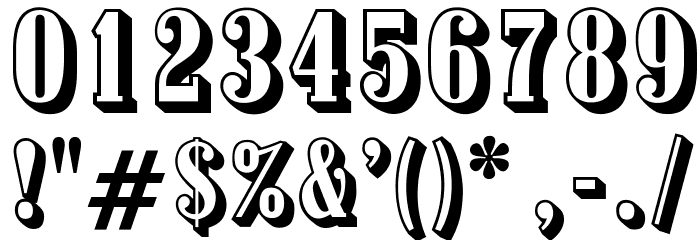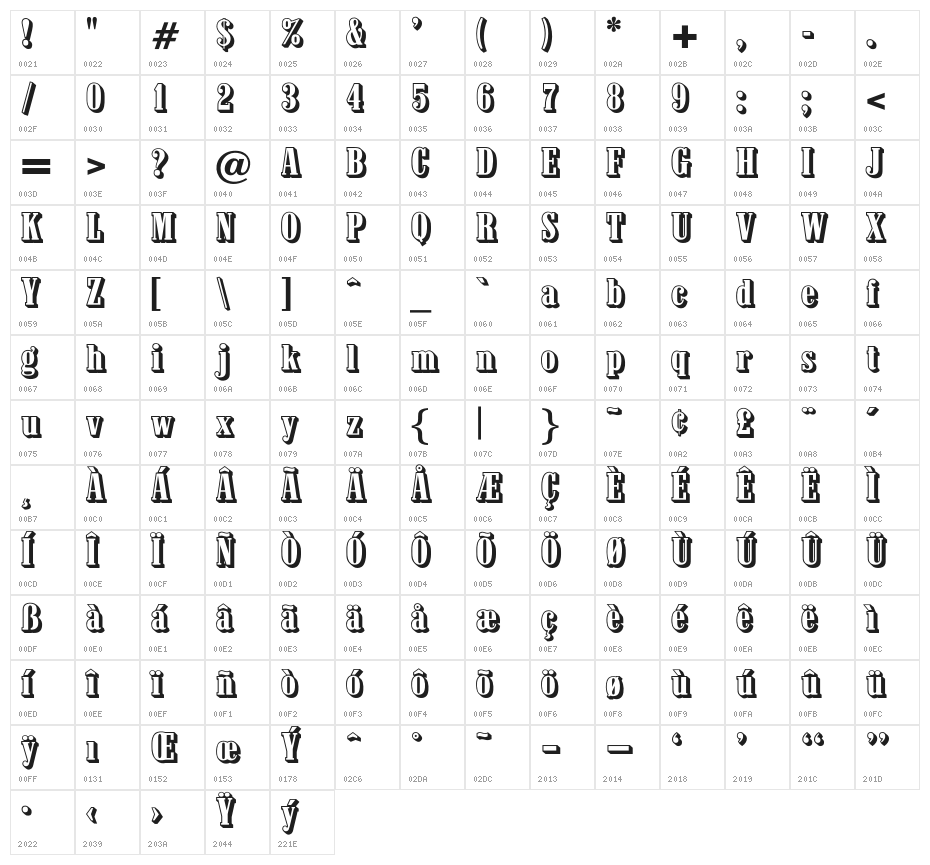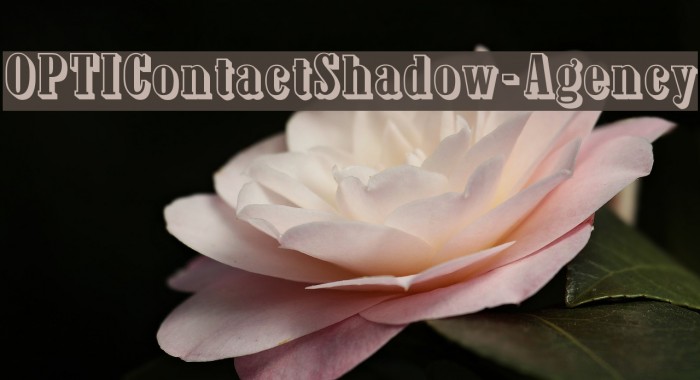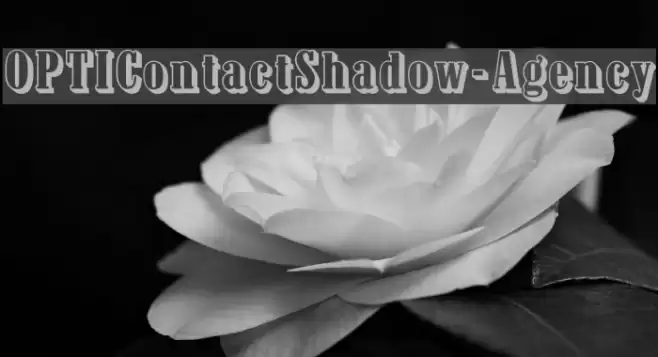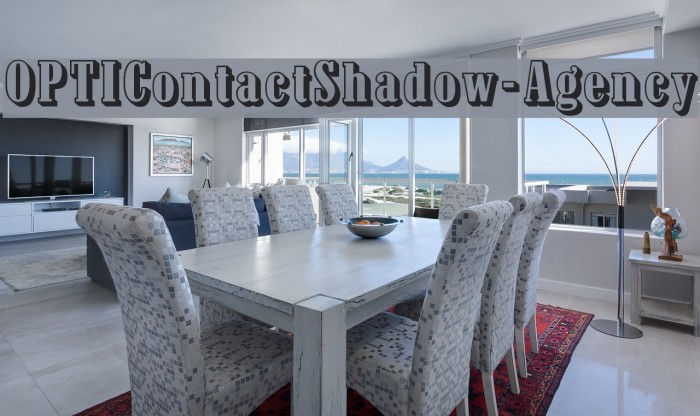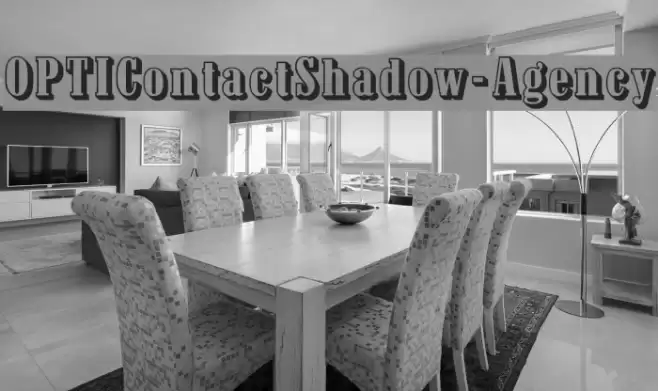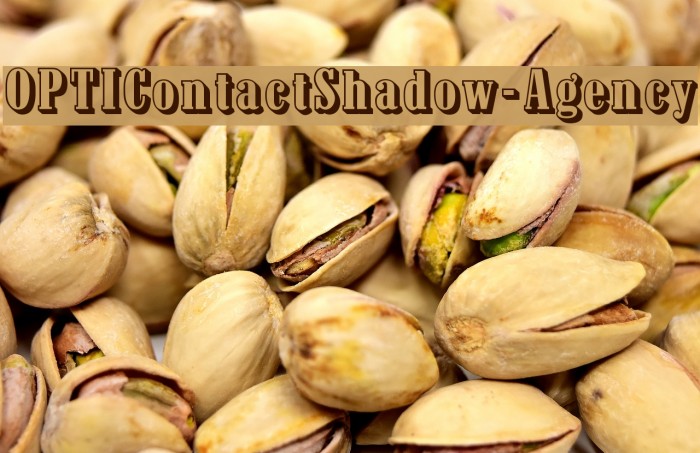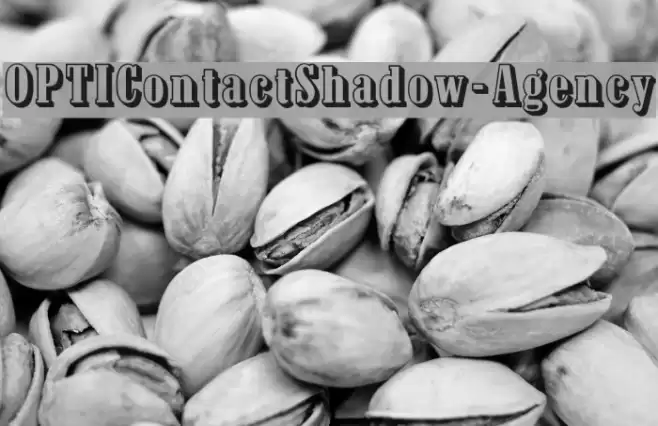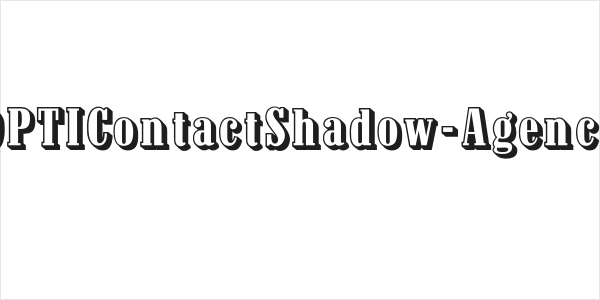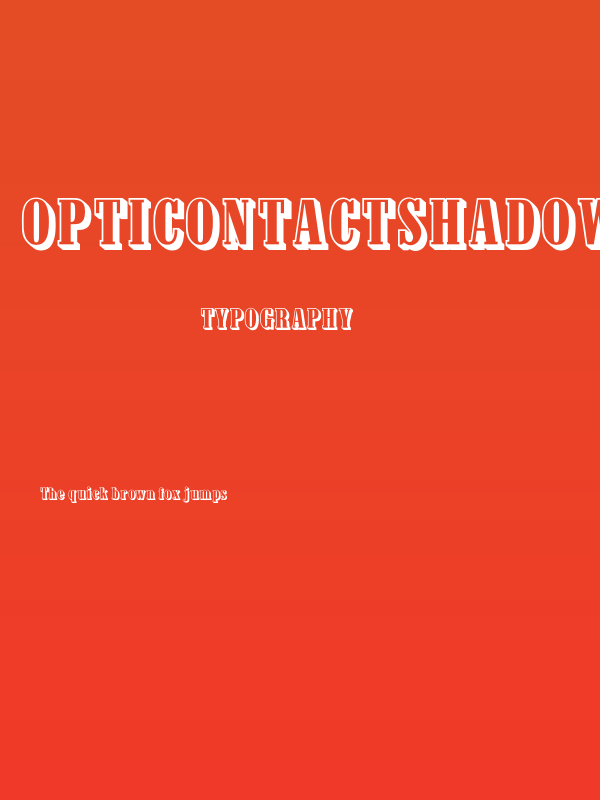
OPTIContactShadow-Agency Font
OPTIContactShadow-Agency Description
This font features bold, uppercase and lowercase letters with a distinct shadow effect that adds depth and dimension. The characters are designed with a strong, impactful presence, making them ideal for attention-grabbing headlines or titles. The numerals and special characters maintain the same bold and shadowed style, ensuring consistency across all text elements. The font's design is both modern and decorative, with a touch of vintage flair due to its shadowing technique. It is suitable for projects that require a strong visual impact and a sense of sophistication.
| Proposed Projects | Ideal for posters, logos, headlines, and branding materials that require a bold and eye-catching design. |